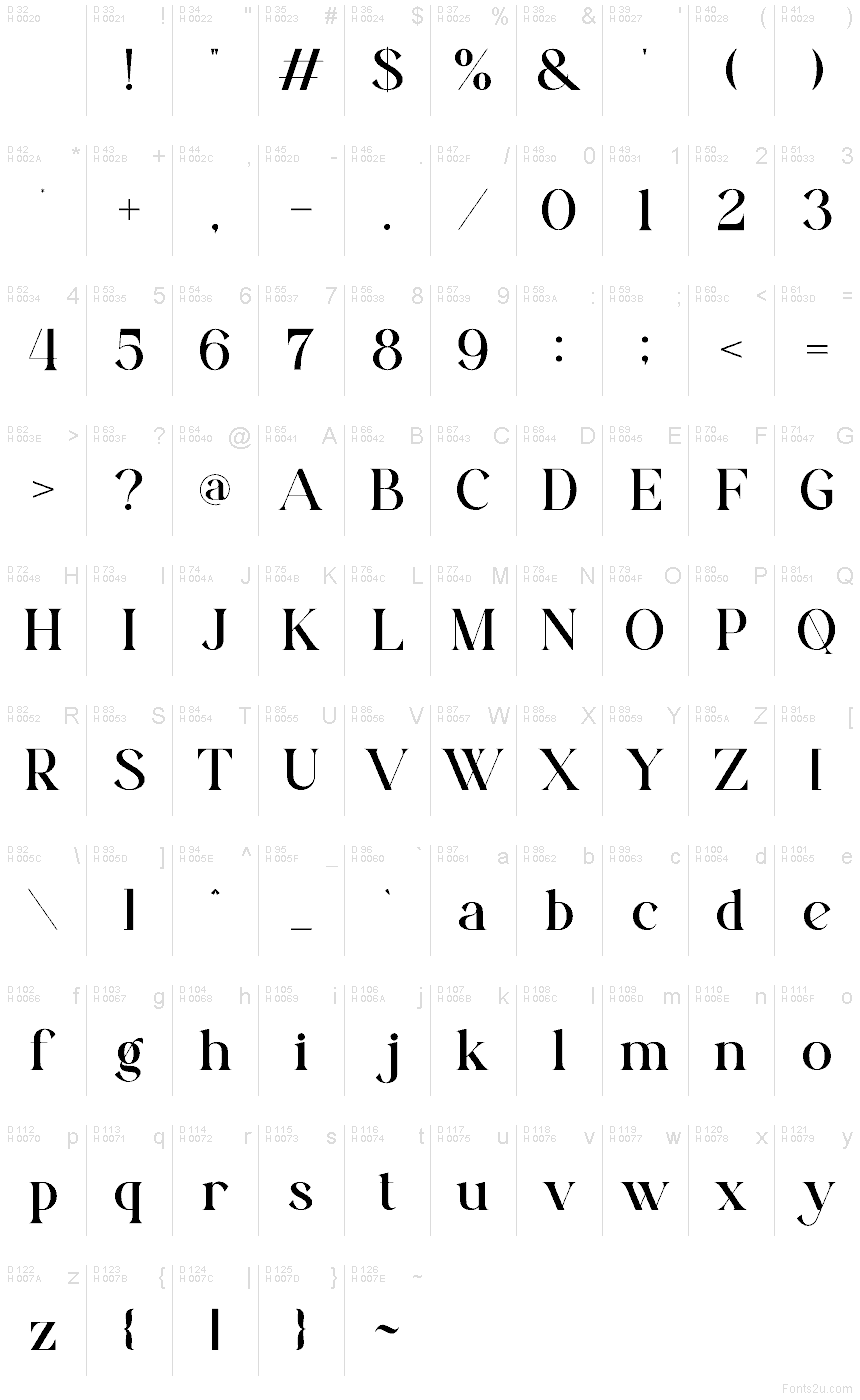
Viroze
Viroze font by Ermedia Studio is a free modern serif display font. It stands out with razor-edged serifs and inky thick-to-thin strokes that slice cleanly into the page, giving each word a polished, couture finish. Subtle tapering and elegant curves create a poised rhythm, while crisp diagonal cuts add a touch of drama without tipping into fussiness.
Using Viroze, headlines feel luxurious and deliberate—great for beauty branding, fashion editorials, boutique packaging, perfume labels, poster titles, and refined event invitations. This free font thrives at large sizes where its sculpted contrasts can breathe; pair it with a quiet grotesk sans for body copy, and add a touch of letterspacing to heighten the high-end glow.